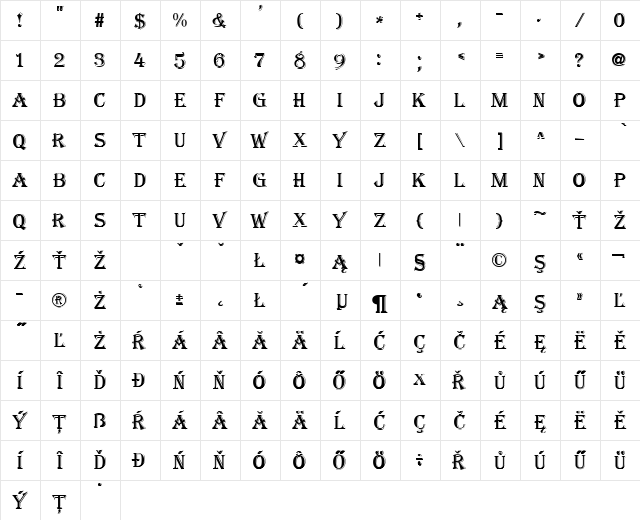
Algiers Normal Free Font
Algiers Normal
Algiers Family
Design Context for Algiers
Algiers is a composed and adaptable typeface that performs quietly and consistently across a wide range of design contexts.